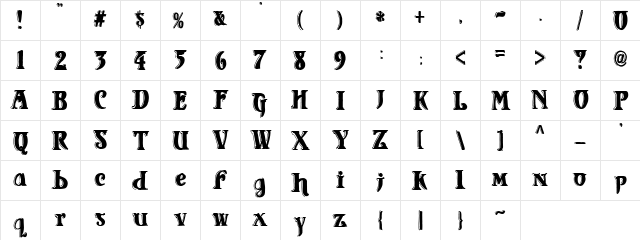
PC Heavy Trim Regular
Design Context for PC Heavy Trim Typeface
PC Heavy Trim is a composed and adaptable typeface that performs quietly and consistently across a wide range of design contexts.
Pro Tip: Use PC Heavy Trim in both headline and body roles to test its range before committing to a single application.